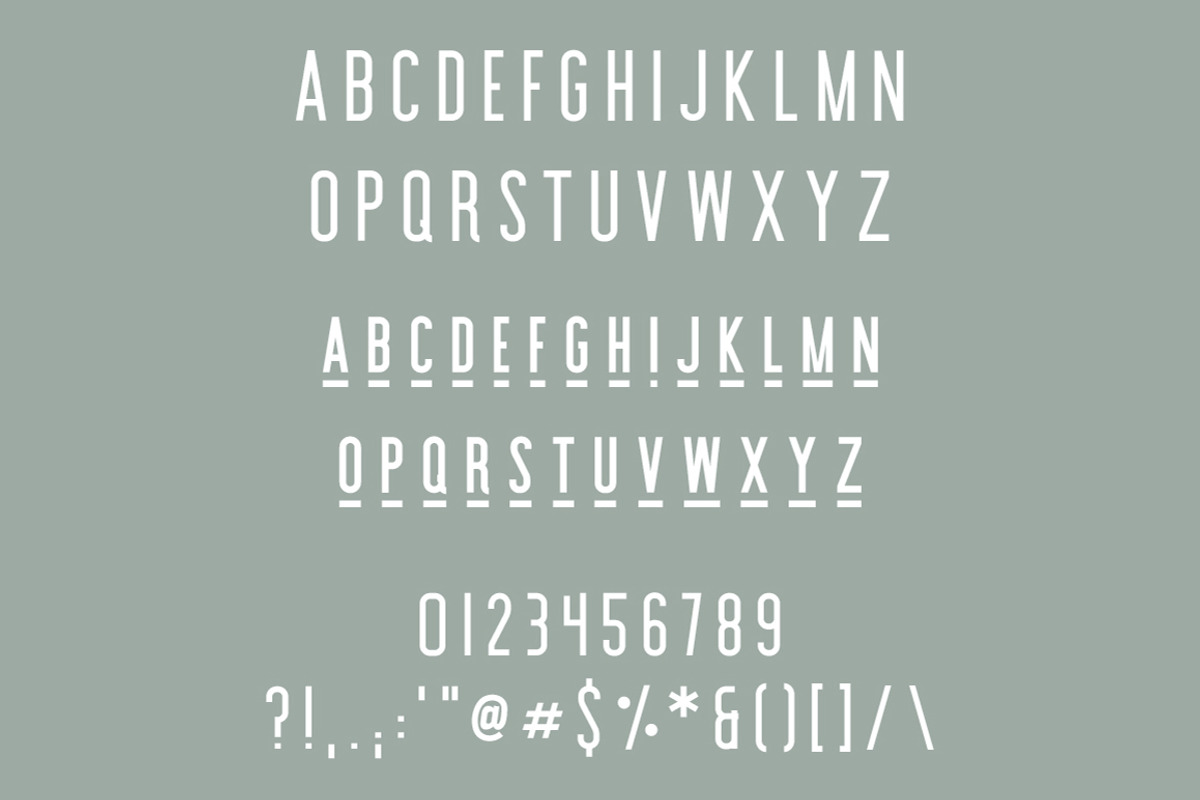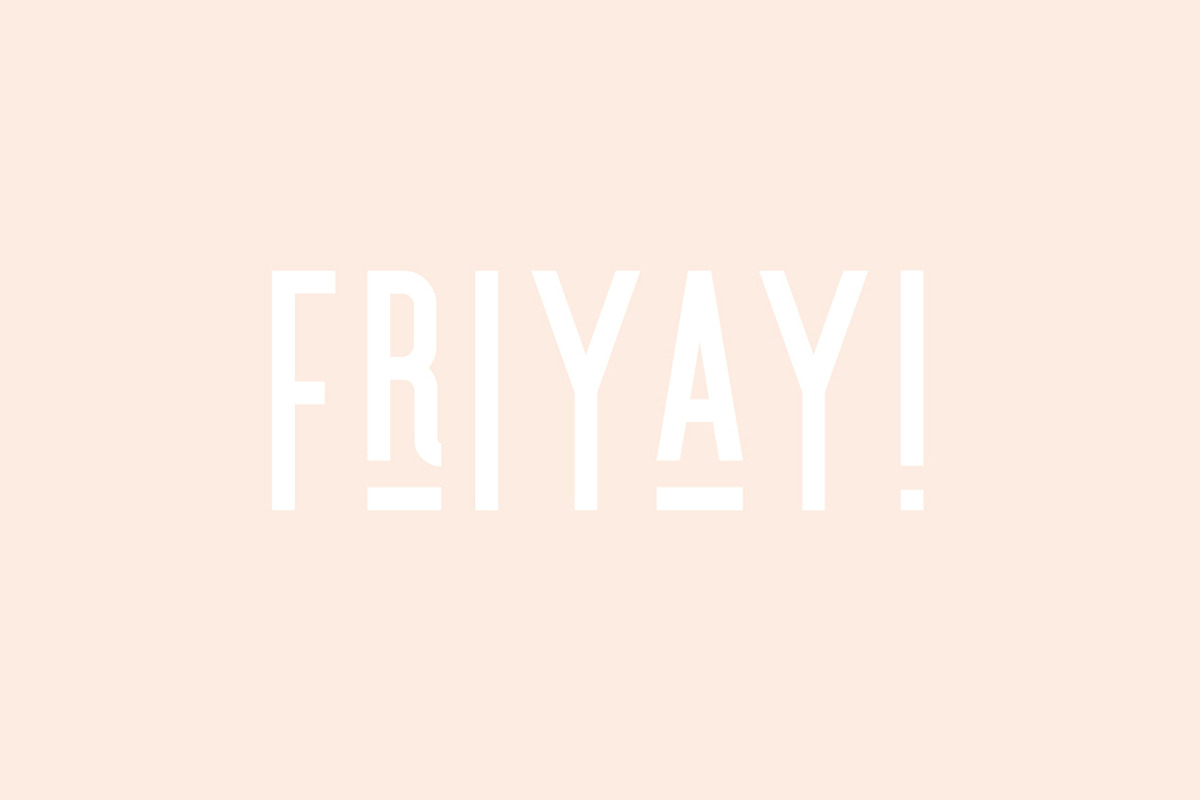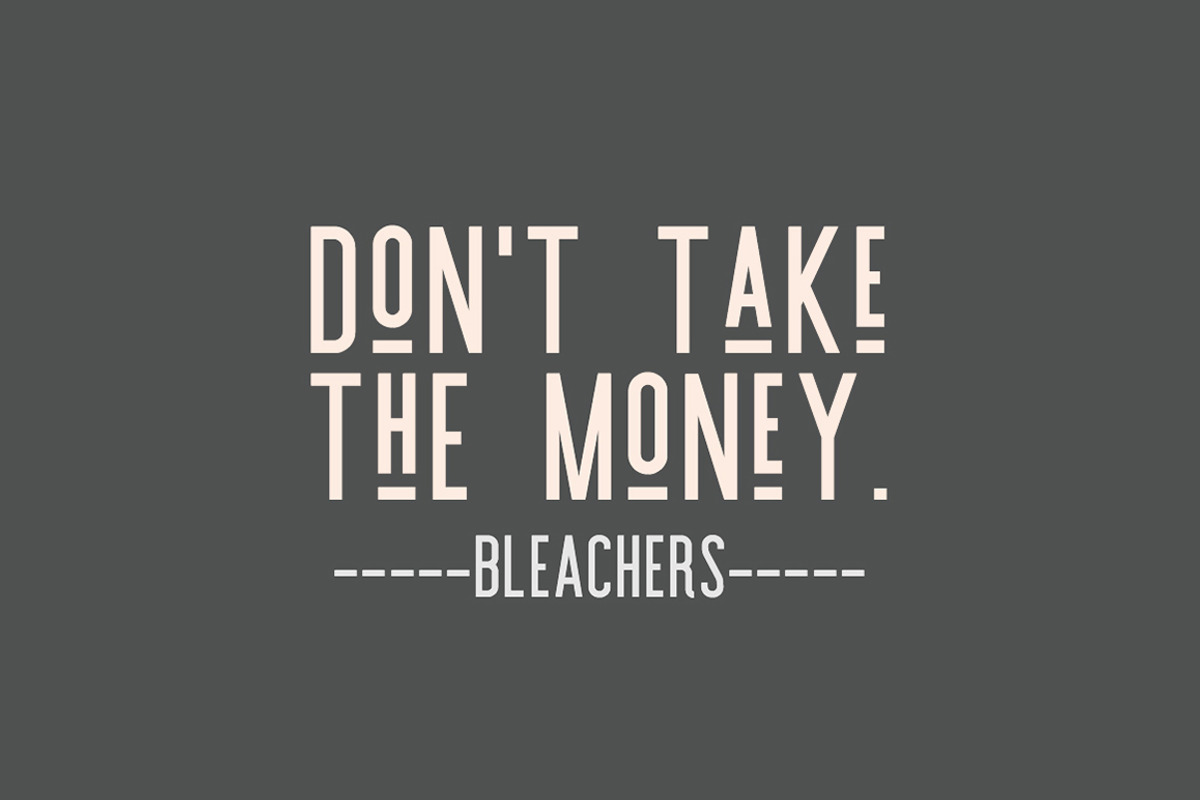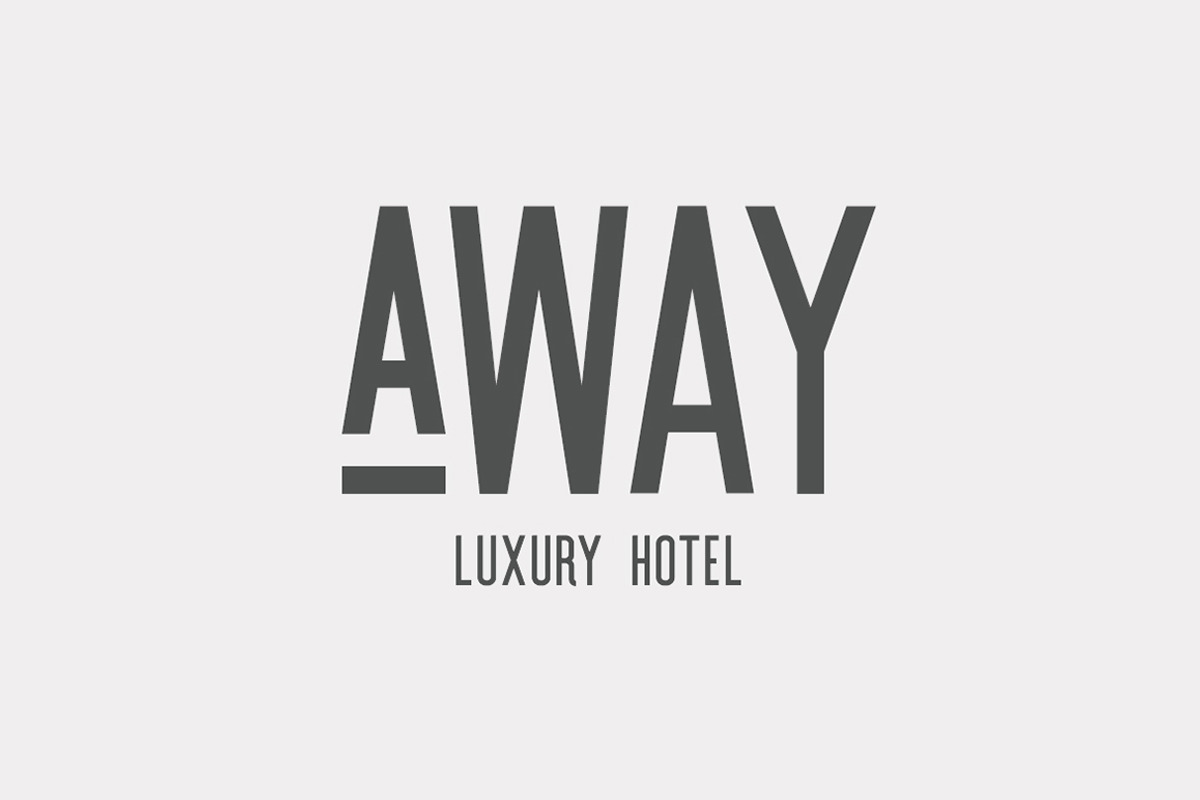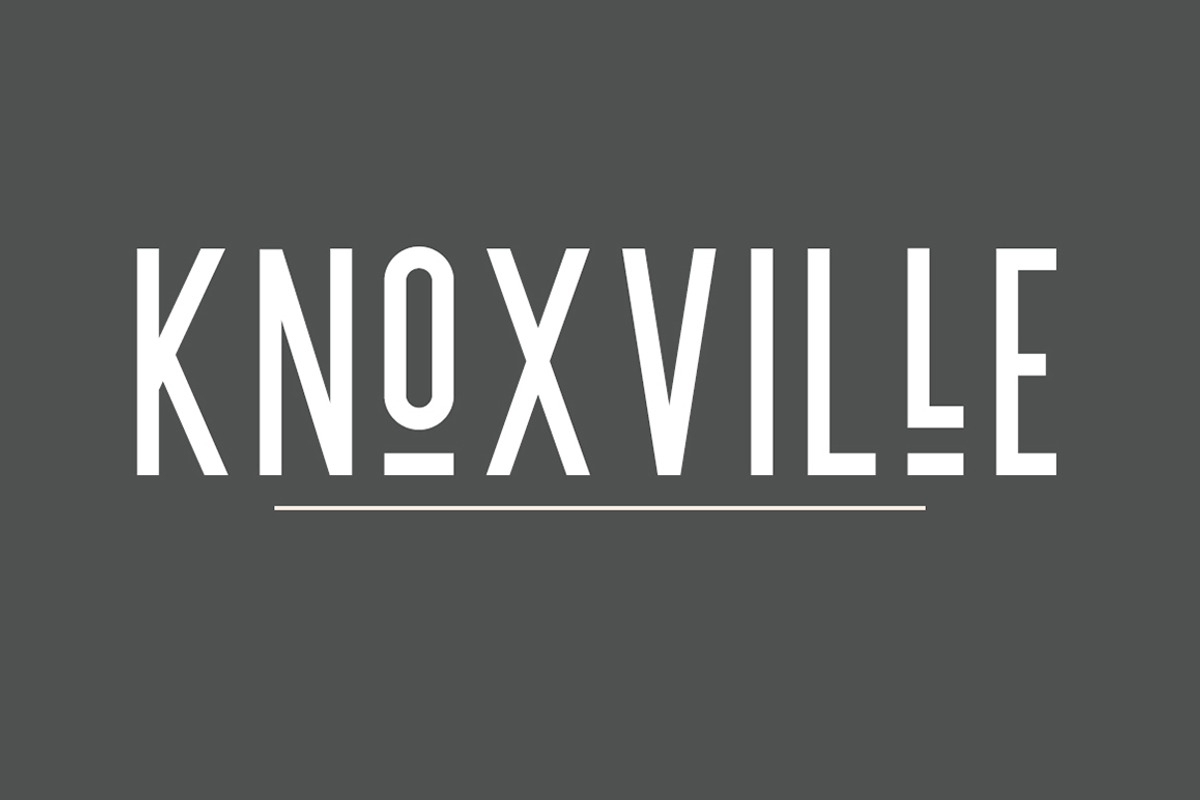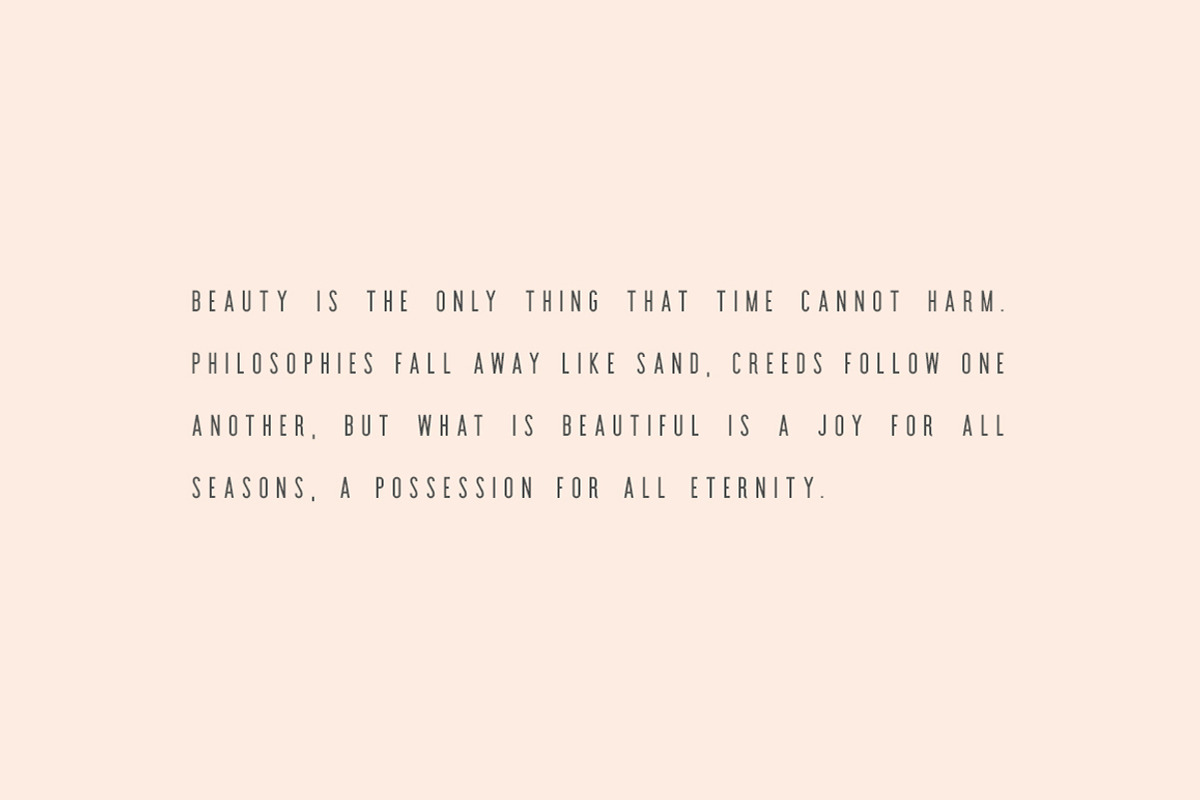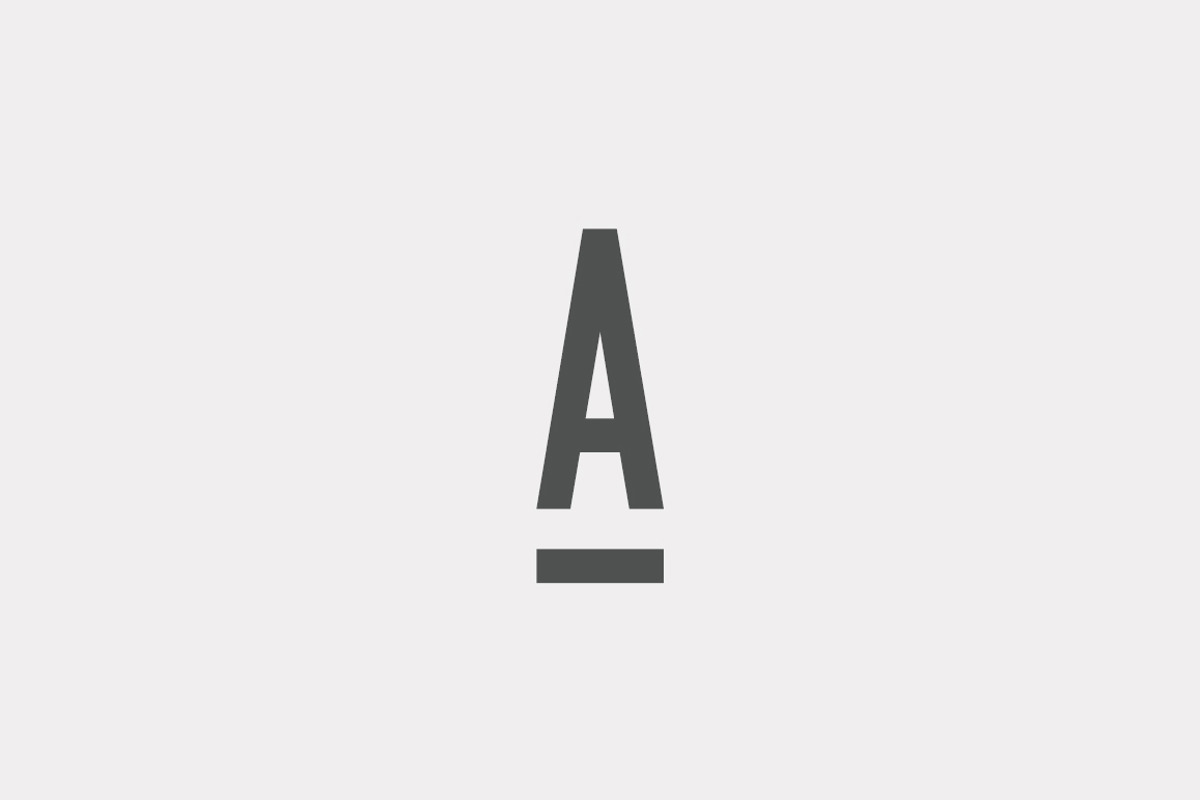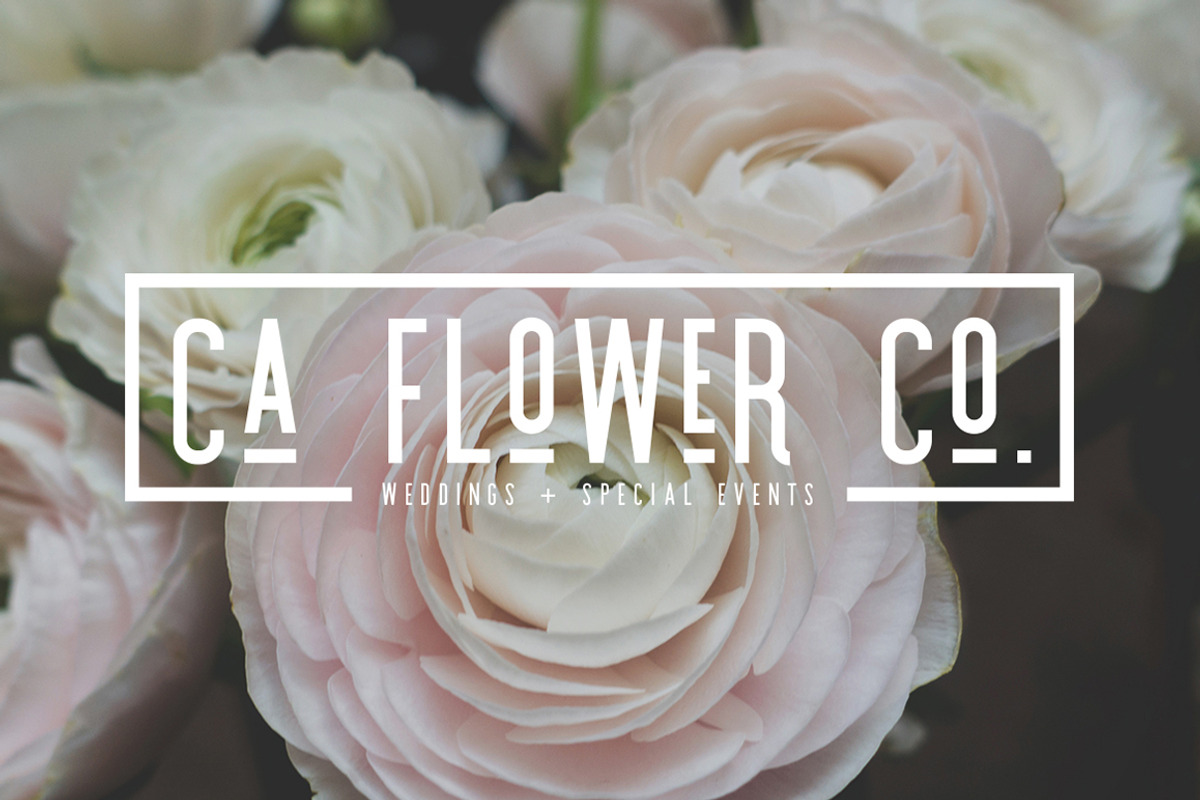
Knoxville | A Logo Creating Font
Knoxville | A Logo Creating Font by Jen Wagner Co is a font selected for branding, posters, packaging, typography.
- Simply use your lowercase letters to enable underlined letters, creating contrast and interest in your logos.
- Each lowercase letter retains the same stroke width of the capital letters, eliminating the risk of it looking inconsistent from letter to l
Why Knoxville | A Logo Creating Font is worth a look
Knoxville | A Logo Creating Font by Jen Wagner Co fits naturally into Branding, posters, packaging, typography.